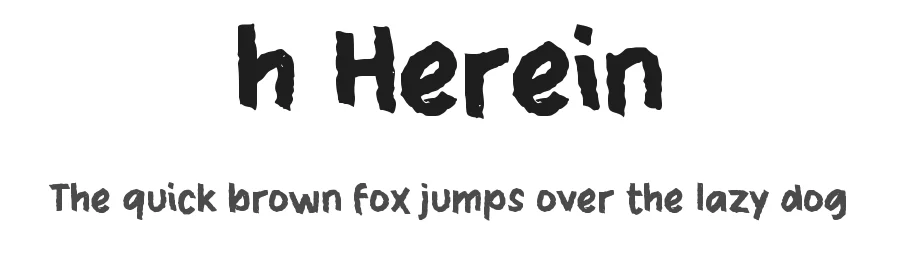
About Shagai Font
Shagai is a childlike display font. It's perfect for cards, poster, blog design, custom art, quote, and many more!
This font is a collaboration between Alde Design and Tiny Hand Letter
Shagai Font is a script font that shines as a display or heading face. Pair it with a clean sans-serif or serif font for body text β the contrast creates a clear hierarchy while the two styles stay balanced and easy to read.